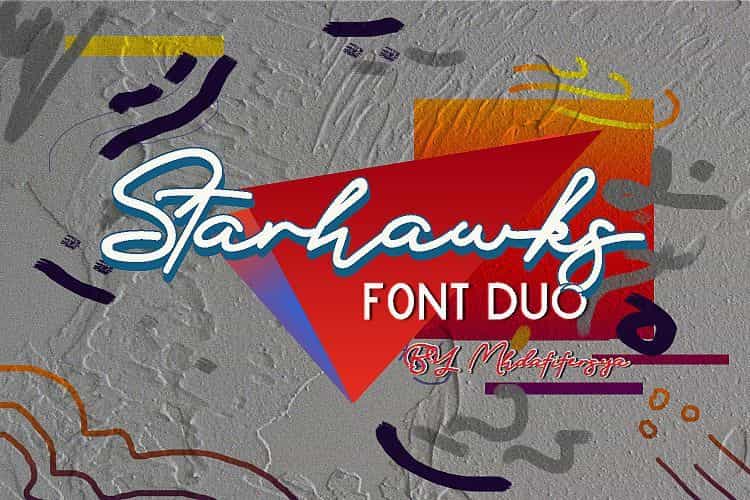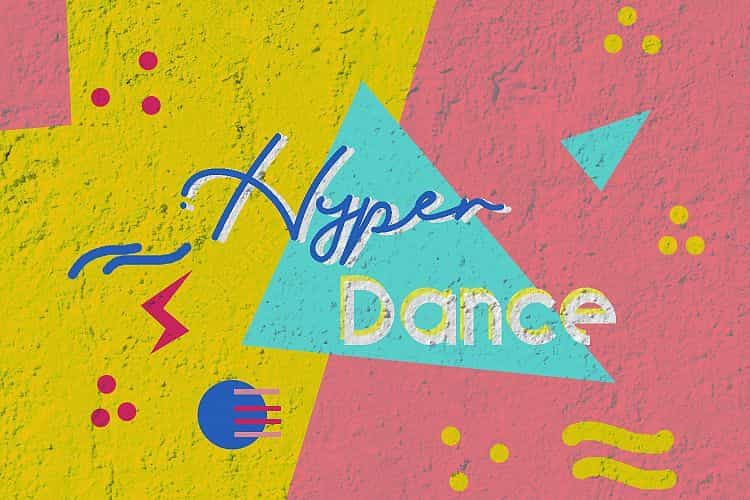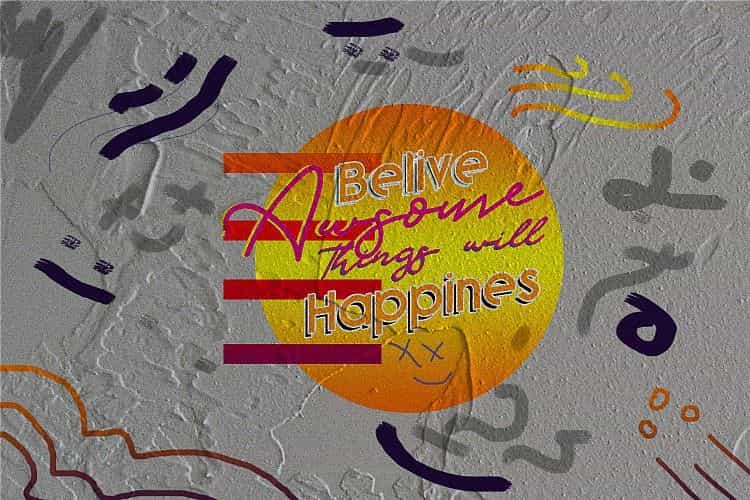
Discover Starhawks Font Duo, part of the Sans Serif Handwritten collection—a versatile and unique font perfect for adding a personal touch to your projects. Download it for free and enjoy crafting designs with style, from invitations to social media posts. This font is available exclusively for personal use, giving you the freedom to create without limits. Unlock your creativity with Starhawks Font Duo today!
Introducing Starhawks Font. This duo font is also the best choice for those creatives who want to create their own visual identity but don’t have a good experience in designing.